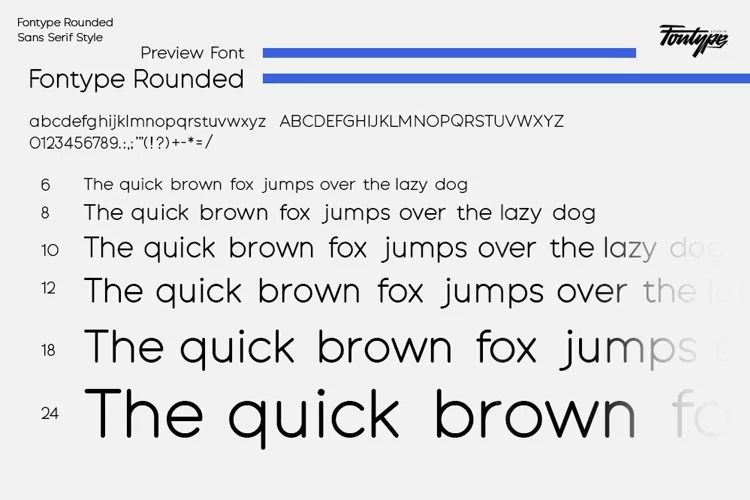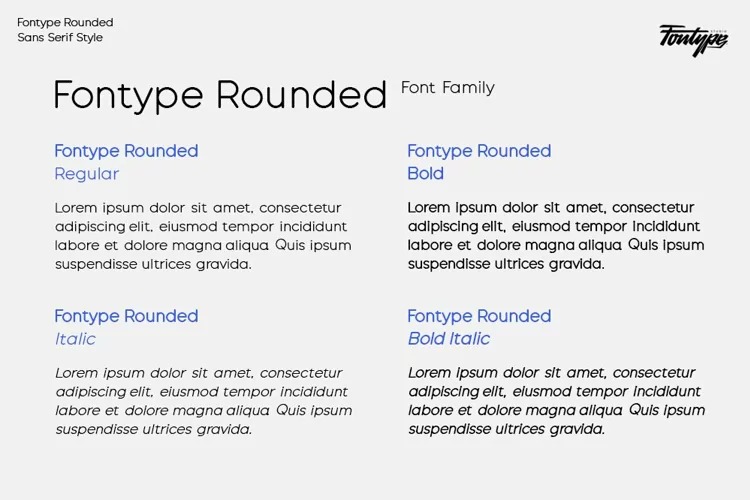
Fontype Rounded Sans Serif Font
This is a minimal geometric and rounded version sans serif font crafted & designed by Ridwan Fadilah. Elegant in the lighter weight, while hard and confident as it gets bolder. This font is made for the needs of letters that look cleaner and simpler in a sentence or used as a branding logo.